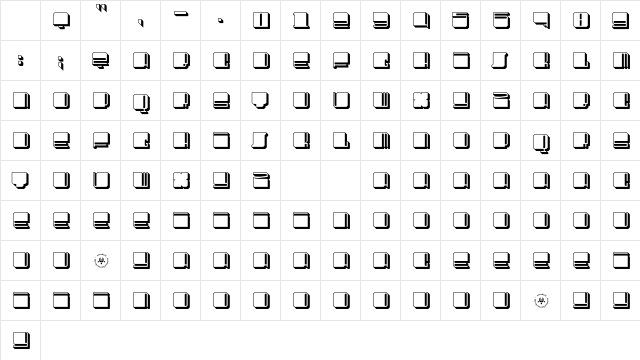
UltraSquared is built around its visual character rather than neutral utility - its distinctive forms are designed to make an impression at display sizes.
Font Pairing: Pair with a clean neutral sans-serif for body copy to let UltraSquared's character lead without overwhelming the composition.
Pro Tip: Use UltraSquared exclusively at display sizes - it was designed to be seen, not read at length. Let a neutral companion handle body copy.